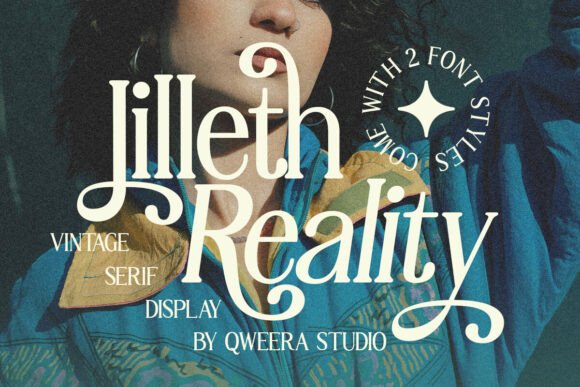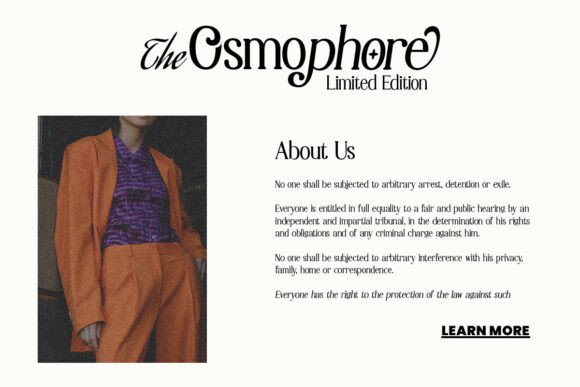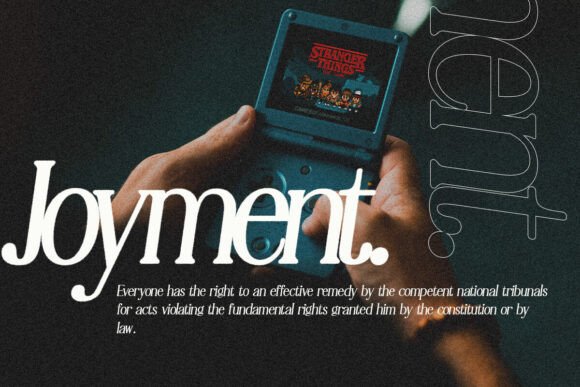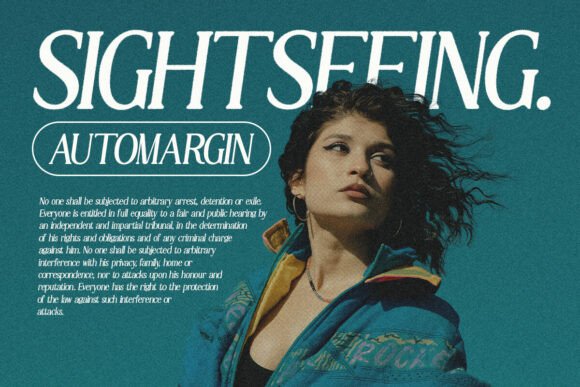
Lilleth Reality Font
About the Lilleth Reality Font
We are excited to introduce Lilleth Reality Font, a must-have typeface for any serious designer. Lilleth Reality – Retro Vintage Serif Font for Timeless and Nostalgic Designs
Lilleth Reality is more than just a font—it’s a celebration of retro vintage design, inspired by the iconic style of the 70s. With its bold and elegant elements, this font brings a nostalgic yet modern touch to your creative projects. Available in regular and italic styles, Lilleth Reality is perfect for posters, magazines, branding, and print materials, ensuring your designs look polished, professional, and full of personality.
Where Retro Vintage Meets Modern Sophistication
Lilleth Reality stands out with its stylish alternates and ligatures, offering endless creative possibilities. Its versatility makes it ideal for projects that demand a retro-inspired look, from vintage branding to editorial layouts. This font isn’t just a tool—it’s a statement of timeless charm and creativity.
Elevate Your Designs with Lilleth Reality
Lilleth Reality isn’t just a font—it’s a tool to transform your creative projects into timeless, retro-inspired masterpieces. Whether you’re designing for print, digital, or branding, this font ensures your work stands out with sophistication and nostalgic charm.
Lilleth Reality Font Usage Examples
Lilleth Reality Font Example